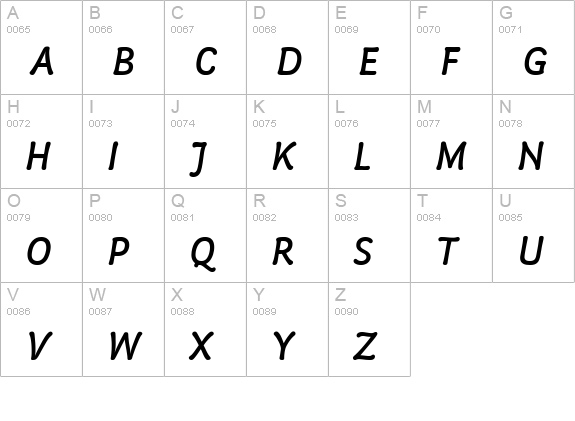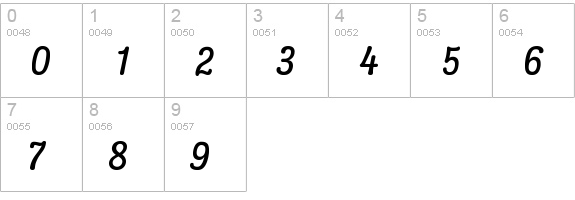
Poppl College (R) 1 Medium is a balanced, medium-weight variant in the Poppl typeface family \xE2\x80\x94 well suited to sub-headlines, navigation, and balanced editorial work.
Poppl College (R) 1 Medium font exudes a perfect blend of elegance and modernity, making it an ideal choice for various design projects. Its sleek and sophisticated appearance adds a touch of professionalism to any text or graphic. This versatile font is perfect for headlines, logos, posters, and more. What makes Poppl College (R) 1 Medium font even more appealing is that it is freely available to download at FontsMarket.com. Whether you are a designer looking to enhance your projects or an individual looking to add a stylish touch to your documents, this font is a must-have. Don't miss out on the opportunity to elevate your designs with this beautiful and timeless typeface. Download Poppl College (R) 1 Medium font today and take your creations to the next level.